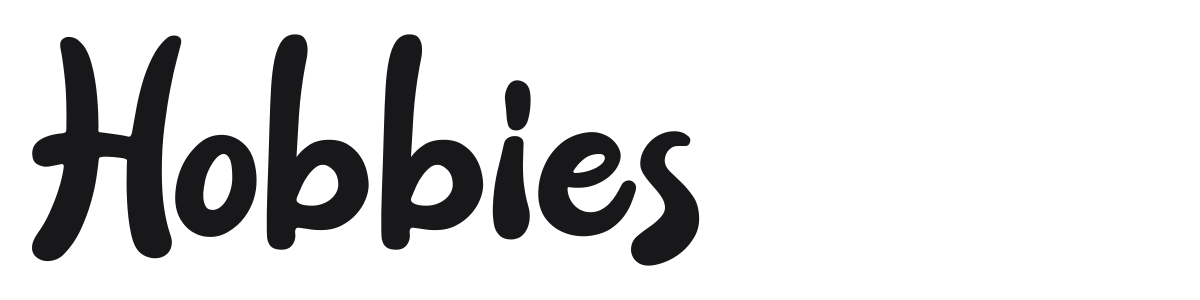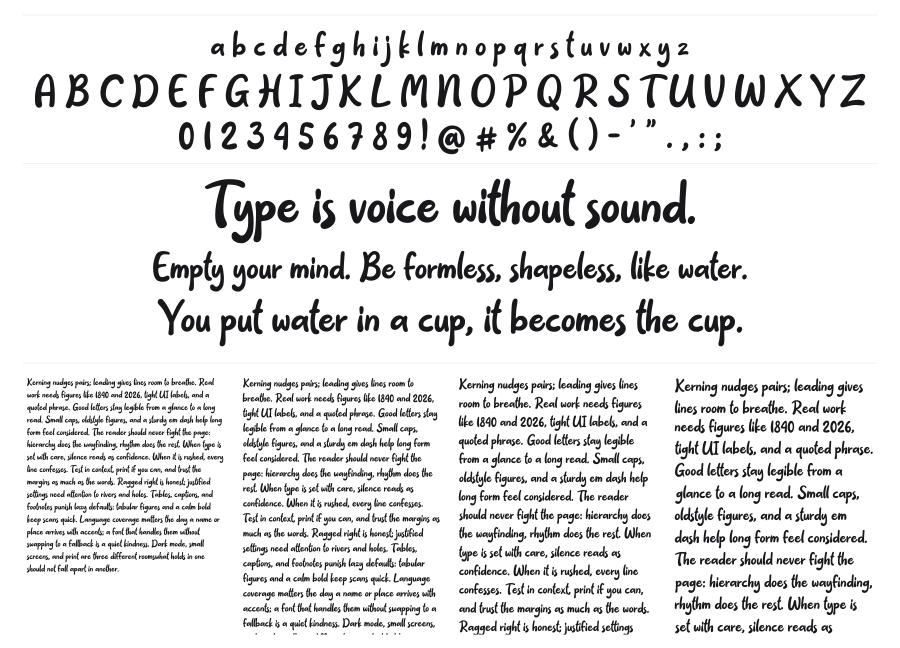
Hobbies
Hobbies is a bold casual script from Weape Studio with thick, rounded strokes and a cheerful bounce that reads like confident marker lettering. Its heavy weight and low stroke contrast keep it legible at large sizes while the informal rhythm adds personality. Strong for youth-facing brands, food packaging, and anywhere a friendly, hand-crafted tone matters.